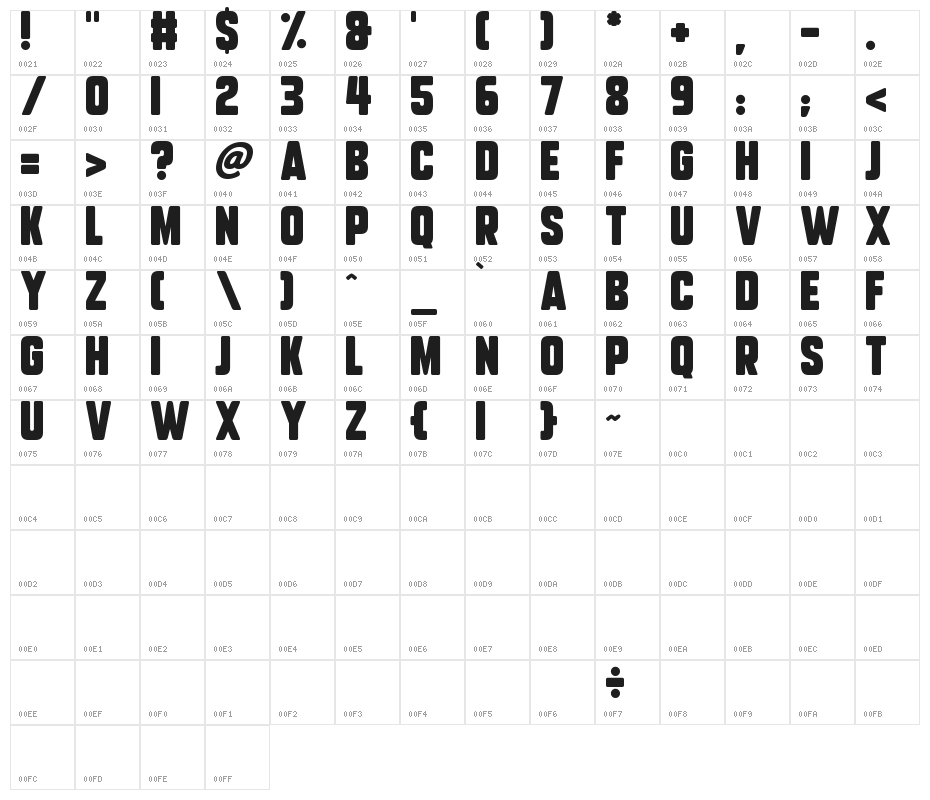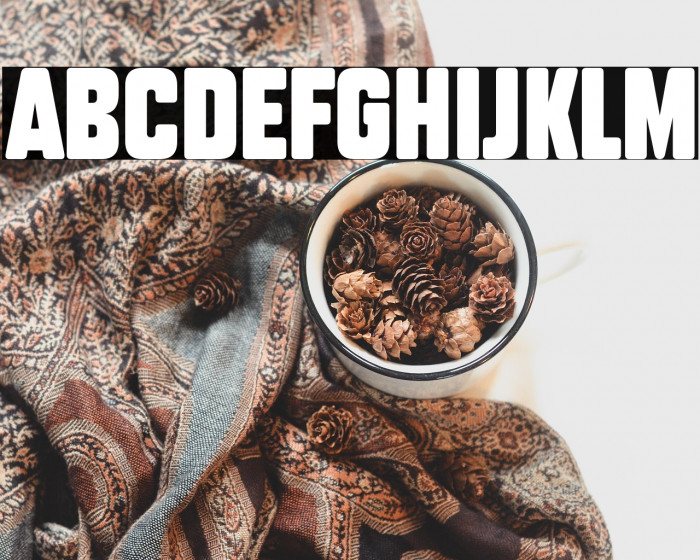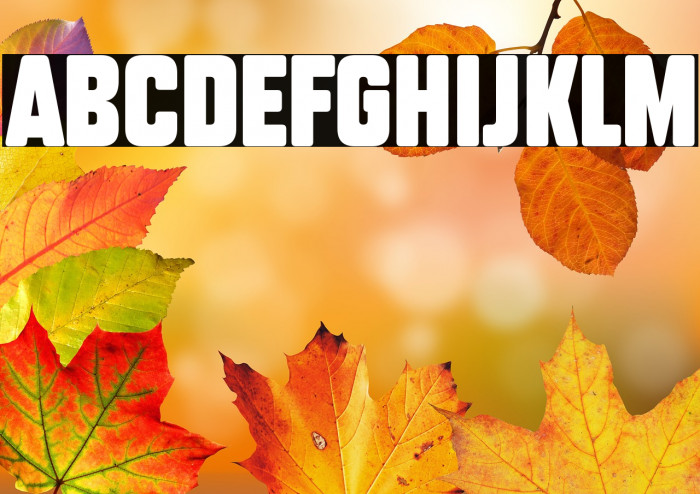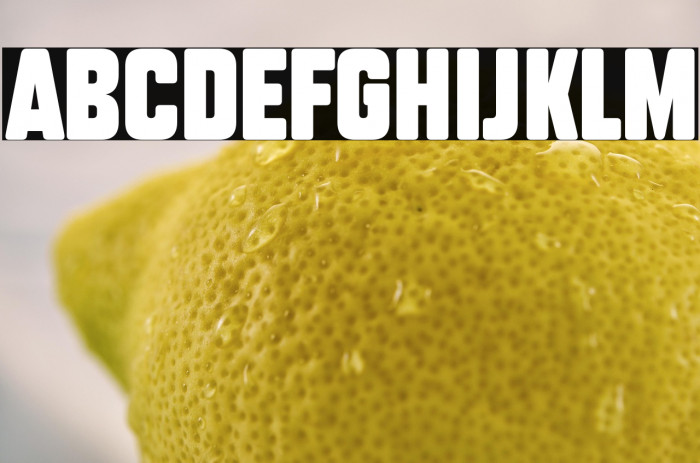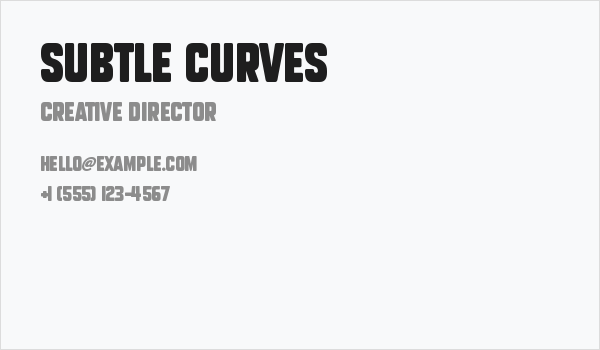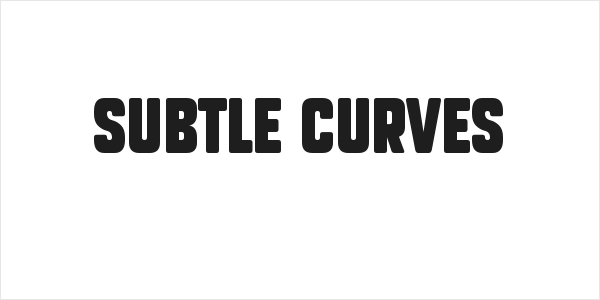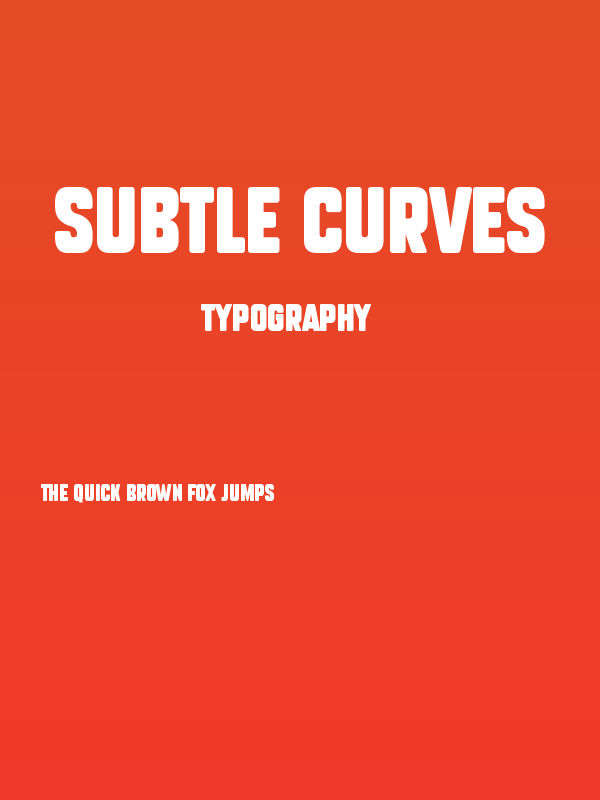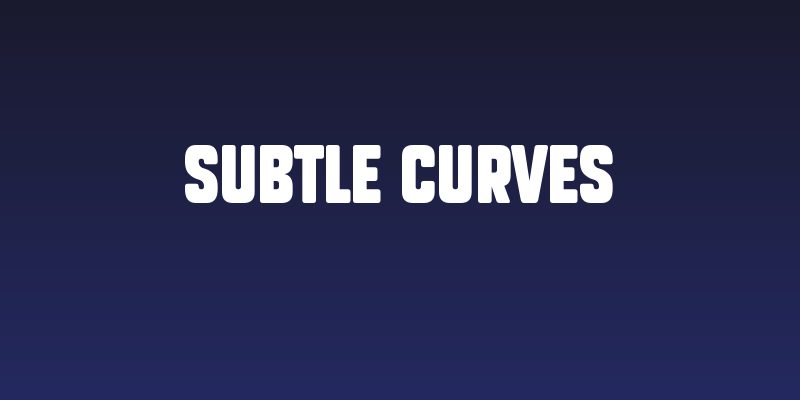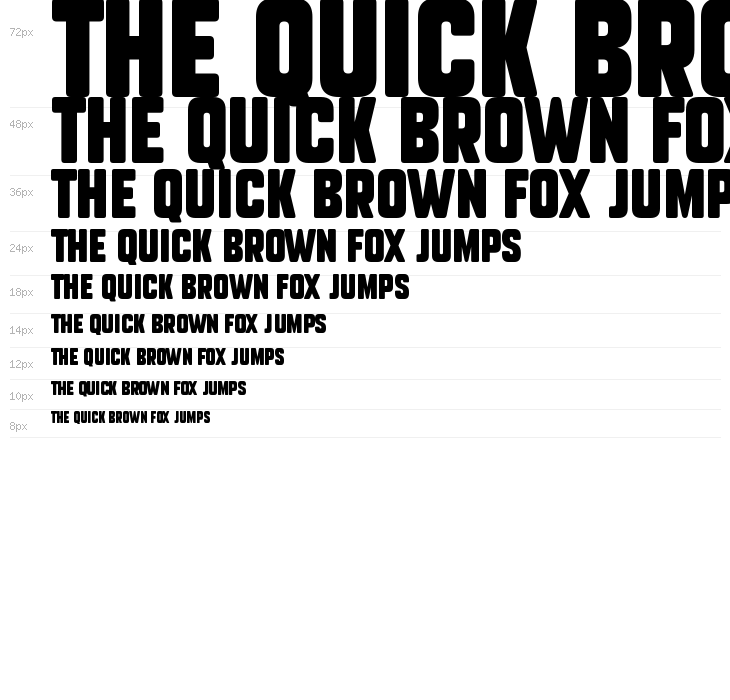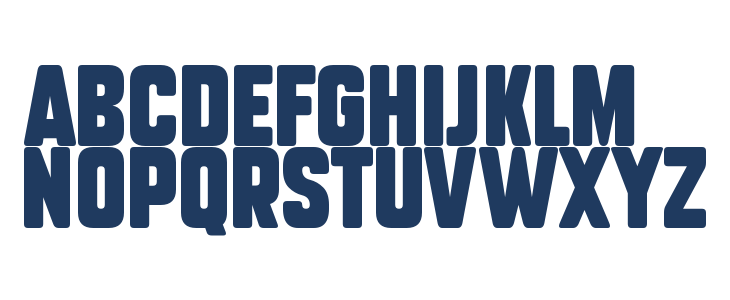
Subtle Curves Font
Subtle Curves Description
This font features bold, blocky characters with a strong presence, ideal for making a statement. The uppercase letters are uniform in height, with a slightly condensed width that gives them a compact and powerful look. The numbers and special characters maintain the same boldness, ensuring consistency across all text elements. The strokes are thick and uniform, providing a low contrast that emphasizes the solid, impactful nature of the design. This style is perfect for grabbing attention and conveying messages with clarity and strength.
| Proposed Projects | Ideal for posters, headlines, branding, and any project requiring a bold statement. |